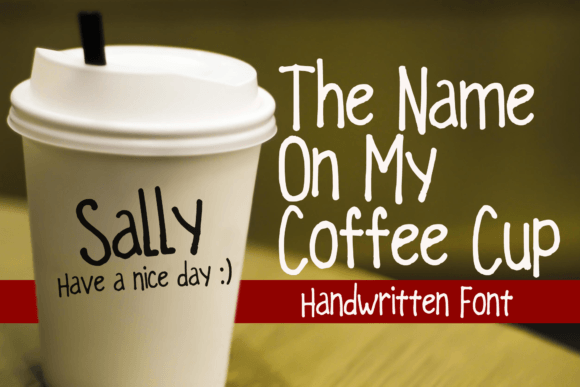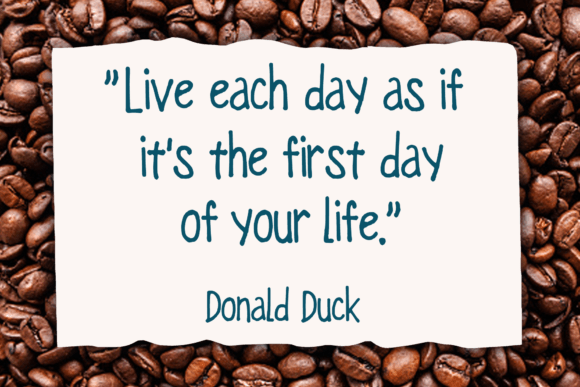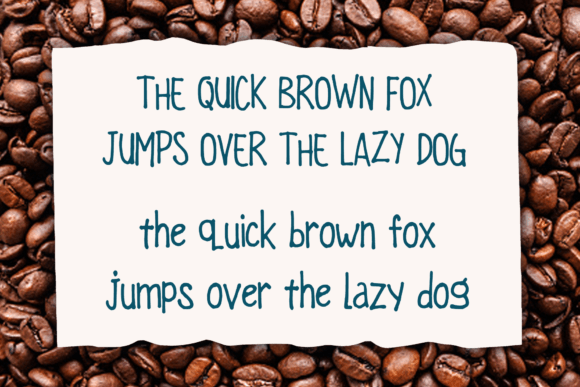
Add Casual Charm with The Name on My Coffee Cup Font
The Name on My Coffee Cup font is a casual and charming handwritten script designed especially for coffee lovers and creative projects needing a relaxed vibe. Its versatile style makes it perfect for everything from coffee shop branding and t-shirt designs to kids’ books, greeting cards, stickers, and posters. This font brings warmth and personality to your designs.
Perfect for Coffee Shops, Apparel, and Creative Projects
The Name on My Coffee Cup font shines across a wide range of applications including business branding for coffee shops, merchandise like t-shirts and mugs, children’s book illustrations, event invitations, and promotional materials. Its friendly, casual strokes add a welcoming and approachable feel to every project.
A Handwritten Script with Versatile Style
Each character in The Name on My Coffee Cup font is carefully crafted with smooth, flowing lines that mimic natural handwriting. This balance of casual charm and readability makes it ideal for headlines, logos, quotes, and decorative text elements.
Stylish, Readable, and Adaptable Typography
Despite its casual nature, The Name on My Coffee Cupfont maintains excellent readability across various sizes. Whether used for bold titles or subtle text, it balances personality with clarity, making it a versatile choice for many creative projects.
Make Your Designs Shine with Coffee-Inspired Warmth
Typography shapes your design’s personality, and The Name on My Coffee Cup adds a cozy and friendly spirit. If you want to elevate your creative projects with a casual handwritten script, download The Name on My Coffee Cupfont today and create lovely, memorable visuals.